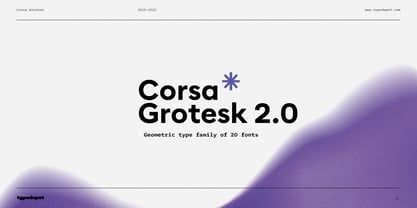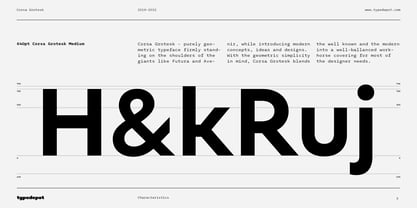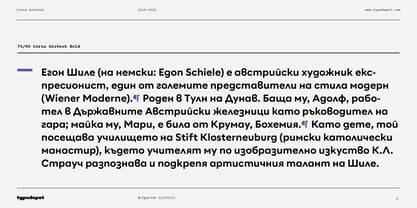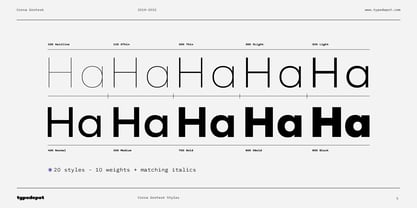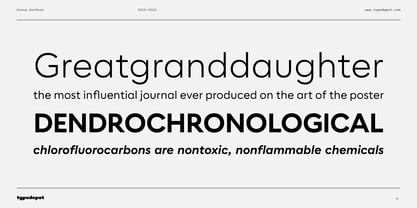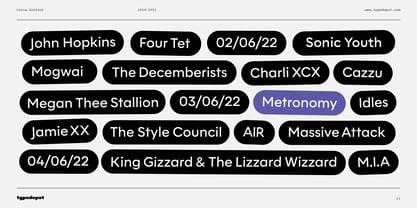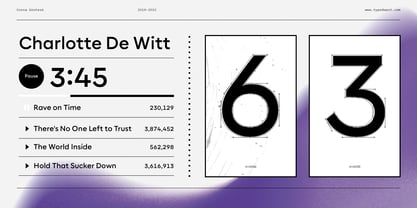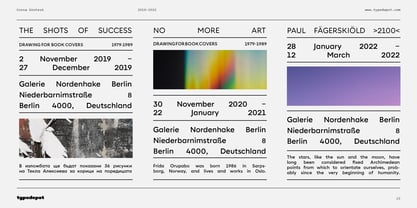
Corsa Grotesk Font
Corsa Grotesk is our very own tribute to two typographic giants: the Futura and Avenir typefaces. It is Designed with geometric simplicity in mind with well balanced strokes and modern touch. Generous proportions and x-height with more contemporary details - the single story ‘a’ and the horizontally barred ‘k’ being just two of many examples makes it shine in every jobs it takes. Corsa Grotesk blends the classic geometric aesthetics into a well-balanced font with generous proportions and minimal contrast. It features 10 weights ranging from Hairline to Black plus matching italics, as well as Cyrillic support for Bulgarian and Russian localizations. Filled with all the essential OpenType features like tabular figures, fractions, ligatures etc, it is a great choice for branding, advertising, user interfaces or any text that needs a bit of polish and a slick, present-day look that still feels familiar. With its 2.0 version we managed to polish the font even more. We revisited every path and fixed all the inaccuracies throughout. Corsa Grotesk now comes with way better and consistent spacing and kerning, just the right amount of contrast and balance.